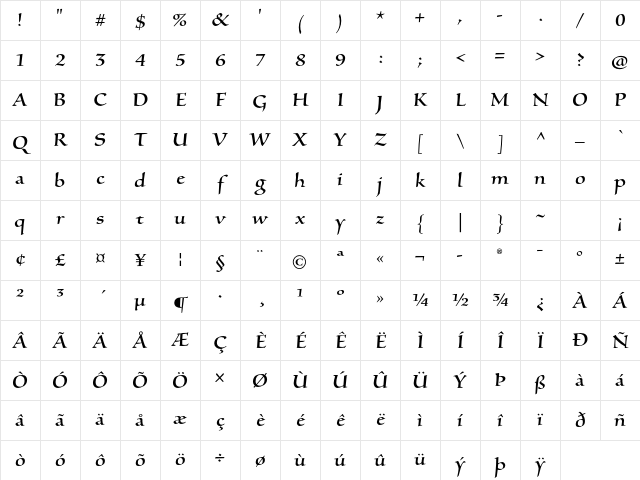
Silentium Pro Roman II
Style: Roman II
Designer: Jovica Veljovic
Design Context for Silentium Pro
Silentium Pro is a composed and adaptable typeface that performs quietly and consistently across a wide range of design contexts.